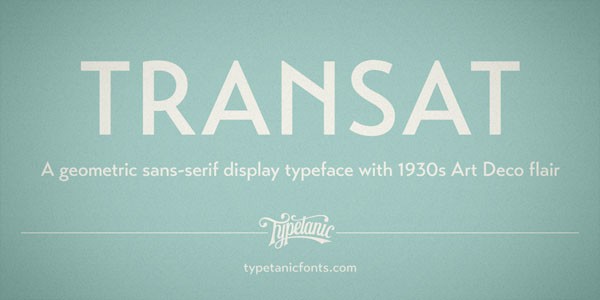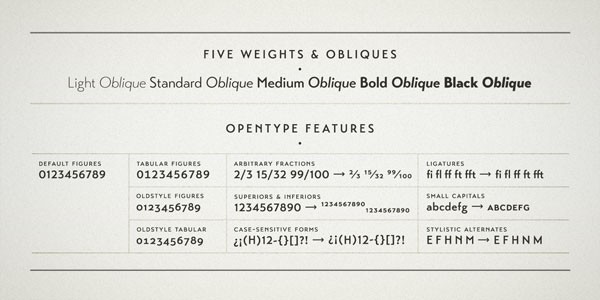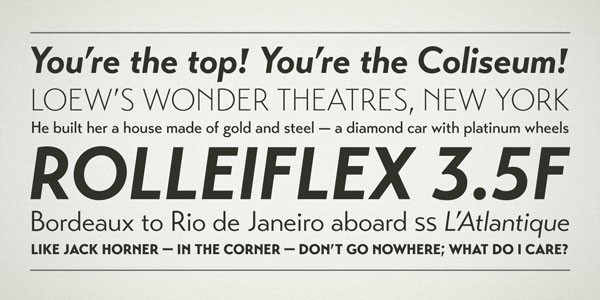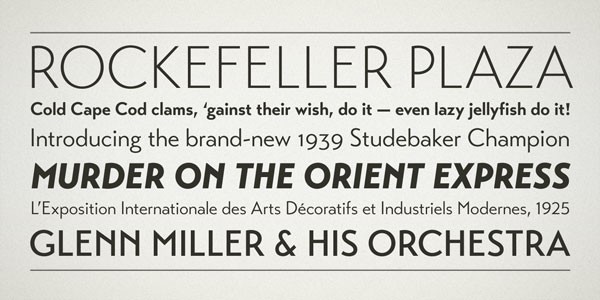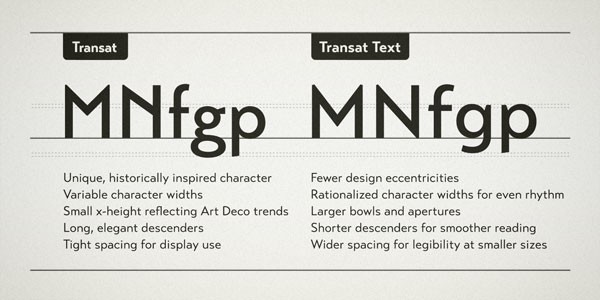
Transat font family, a geometric sans serif typeface from Typetanic Fonts with caps inspired by Art Deco signage.
Gregory Shutters, a New York City based type designer and founder of foundry Typetanic Fonts has created the Transat typeface in 2013. It’s a geometric sans serif with caps inspired by Art Deco signage.
The family is equipped with five weights plus matching obliques as well as a range of OpenType features such as ligatures (ff,ft,fft), small capitals, case sensitive forms, stylistic alternates, arbitrary fractions, and a full complement of proportional, tabular, and oldstyle figures. Its extensive character set supports multiple languages. The typeface is intended for the use in eye-catching headlines, titles, and short text sections. In addition, Gregory Shutters developed a more rational text-friendly companion font called: “Transat Text“. Both families can be combined seamlessly.